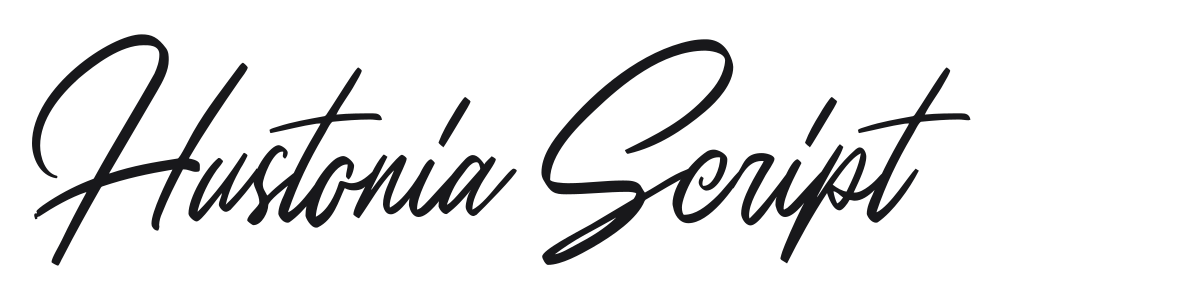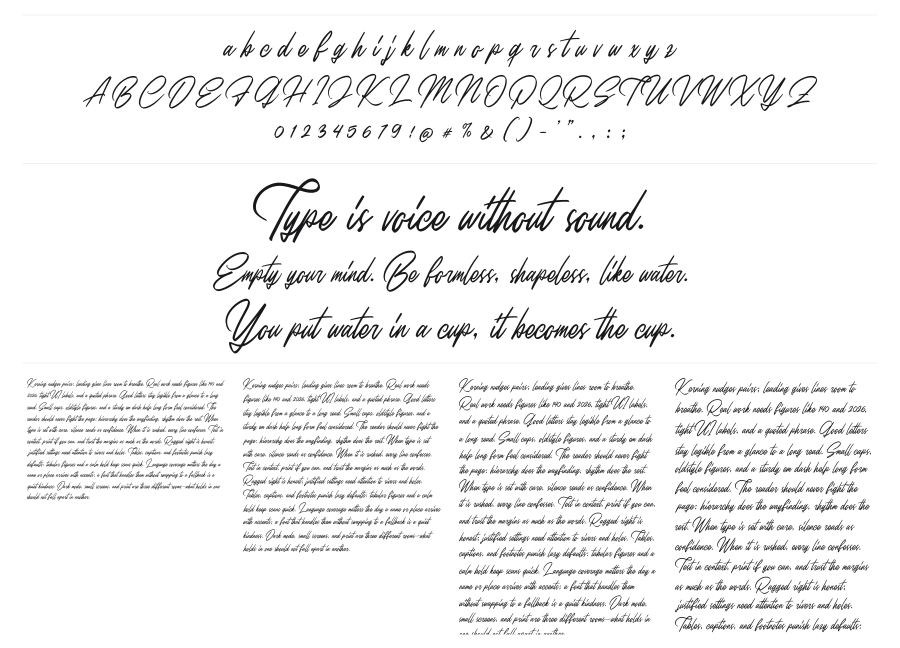
Hustonia Script
Hustonia Script is a casual handwritten script with flowing, connected strokes and a confident, natural slant. Looping ascenders and a lightly bouncy baseline give it an informal energy that reads as personal and expressive rather than polished or stiff. It works well at display sizes for branding, packaging, social media graphics, and editorial headlines.